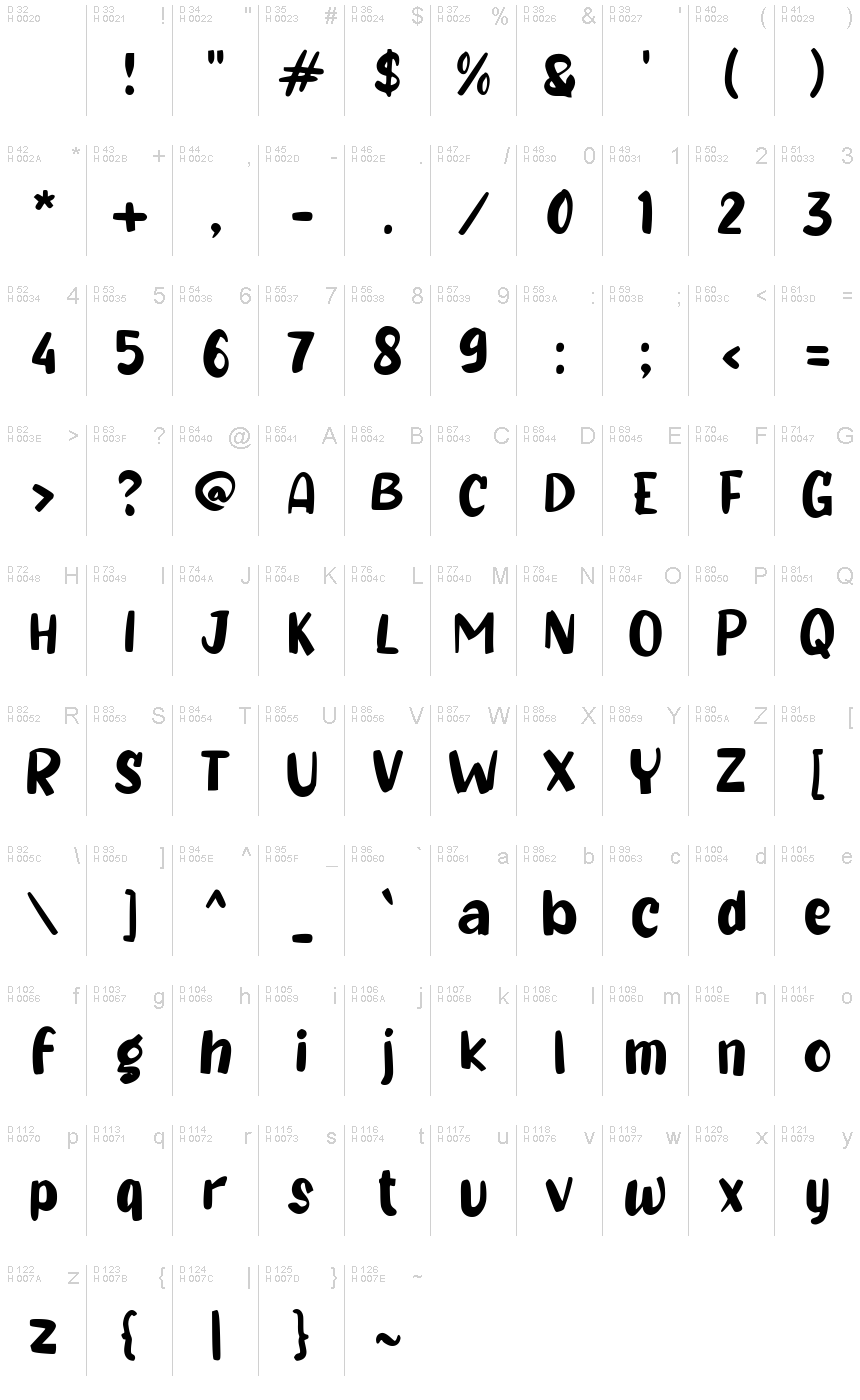
Flying Bird
Flying Bird is a bold, cartoon-inspired display font that immediately catches the eye. With its playful, hand-drawn aesthetic, this font exudes a sense of whimsy and energy. The thick, expressive strokes and rounded terminals lend it a charmingly animated quality, perfectly suited for headlines, logos, and other attention-grabbing design elements.
The strong, confident weight of Flying Bird makes it an ideal choice for projects aiming to convey a sense of fun and vibrancy, such as children's books, product packaging, or promotional materials. Its distinctive style also lends itself well to branding and identity work, where a memorable, distinctive typeface can help a design stand out. Whether used alone or paired with complementary typefaces, Flying Bird has the potential to breathe life and personality into a wide range of creative endeavors.